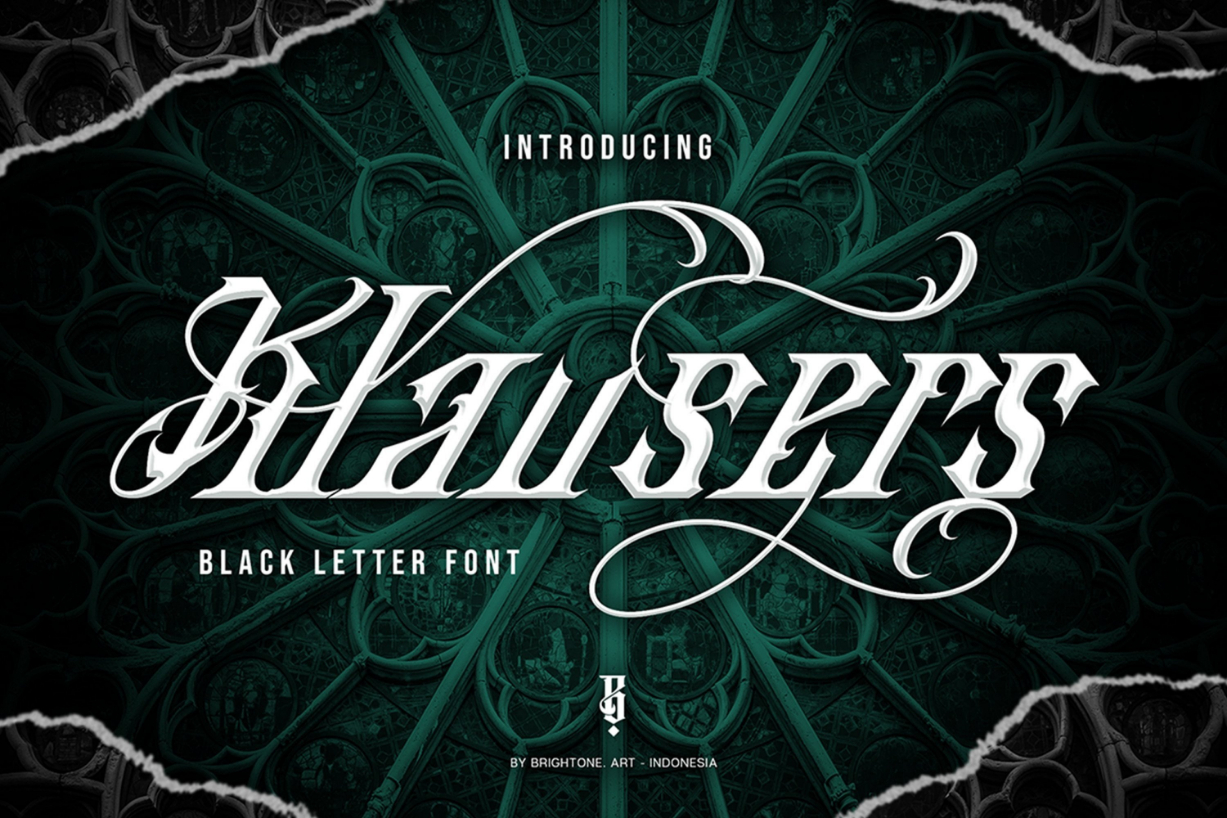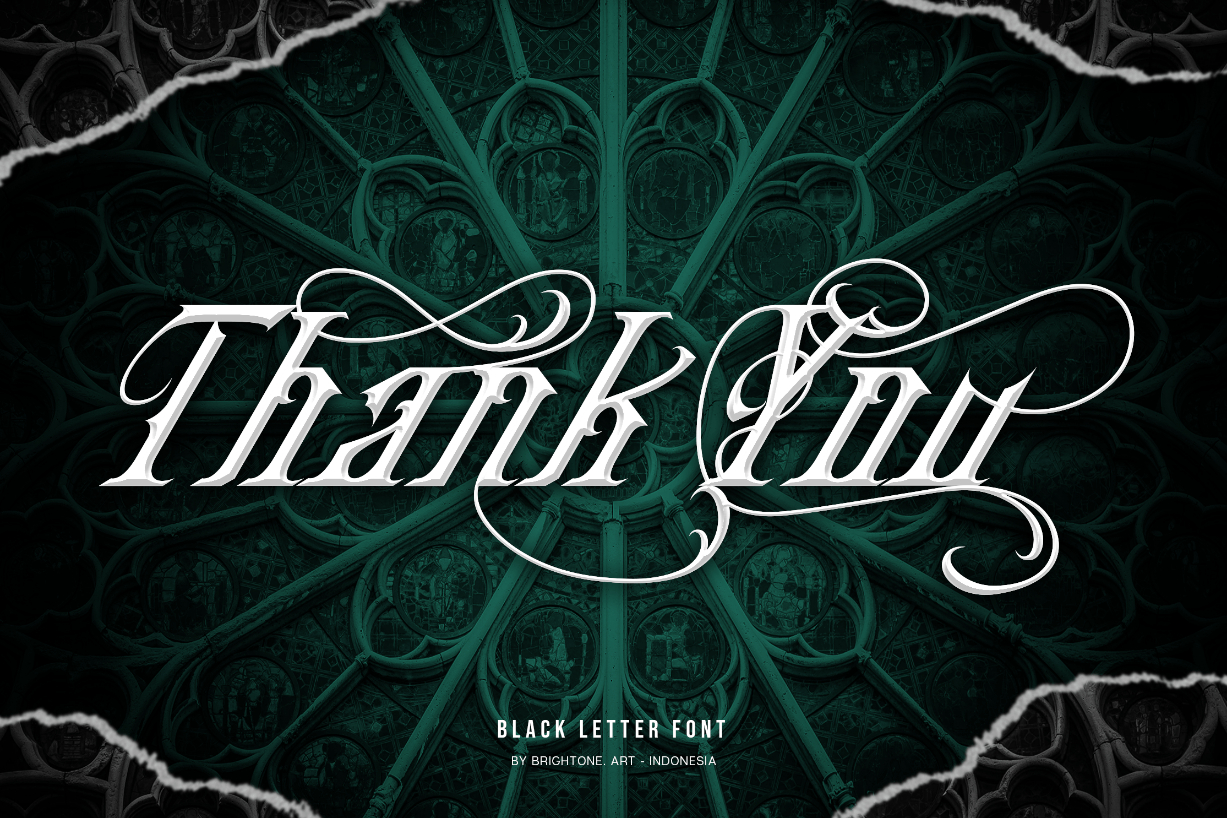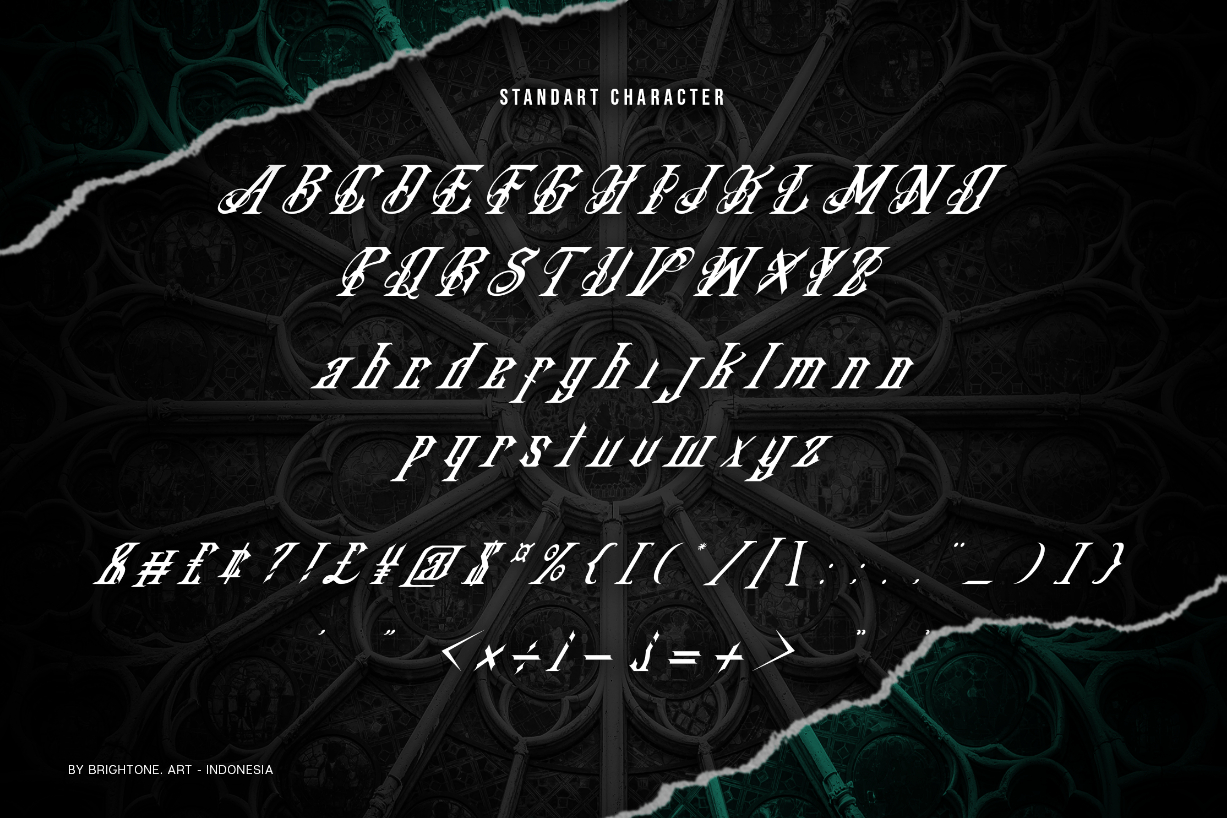
About Klausers Font
Klausers is a blackletter italic font that includes unique characters for your most creative designs. This is a professional blackletter font with a swash style for your logo lettering, shirt design, logo tattoo studio, tattoo design, branding, and many more projects. This font is PUA encoded, which means you can access all of the glyphs and swashes with ease!